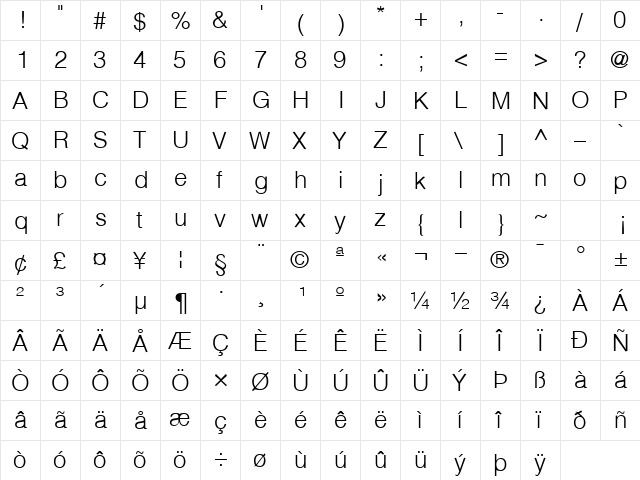
HelvLight Regular
Design Context for HelvLight Typeface
HelvLight takes a measured approach to typography — its balanced proportions and neutral character make it a reliable workhorse for both digital and print work. Its slender proportions lend an understated elegance to any composition.